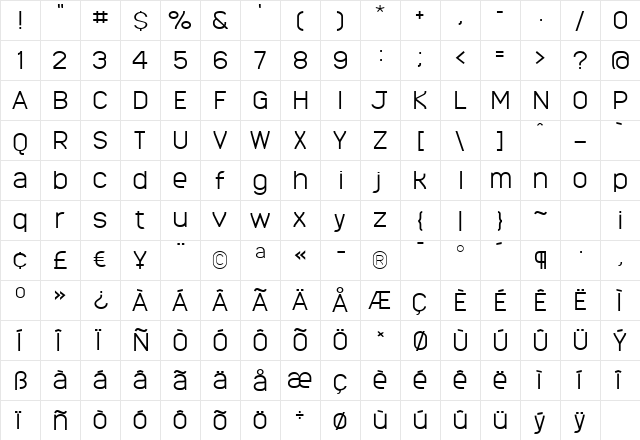
MonarkLight Regular
Design Context for MonarkLight Typeface
MonarkLight offers clean, dependable letterforms without strong stylistic allegiance, making it a practical choice for designers who need flexibility. Its slender proportions lend an understated elegance to any composition.